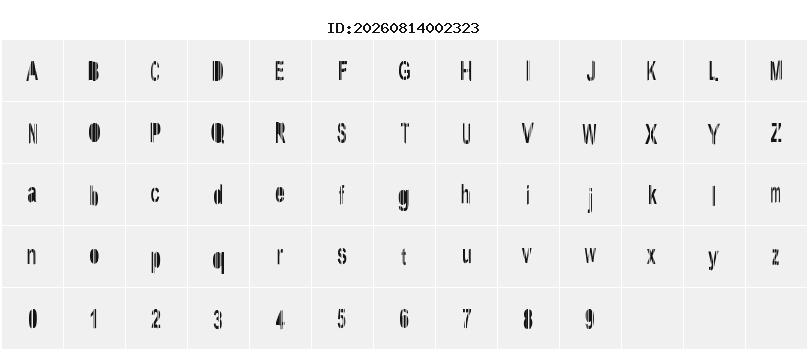
• Font Name: System
• Font ID: System:Version 1.00
• Full Font Name: System
• Version: Version 1: June 7, 2009
• PostScript Name: System
• Character Count: 586
• Copyright: System © (DaPimp Fonts) 2009
About System.ttf
System.ttf is a modern, elegant sans-serif font designed for ultimate readability and visual harmony. Perfect for branding, headlines, web design, and print materials.